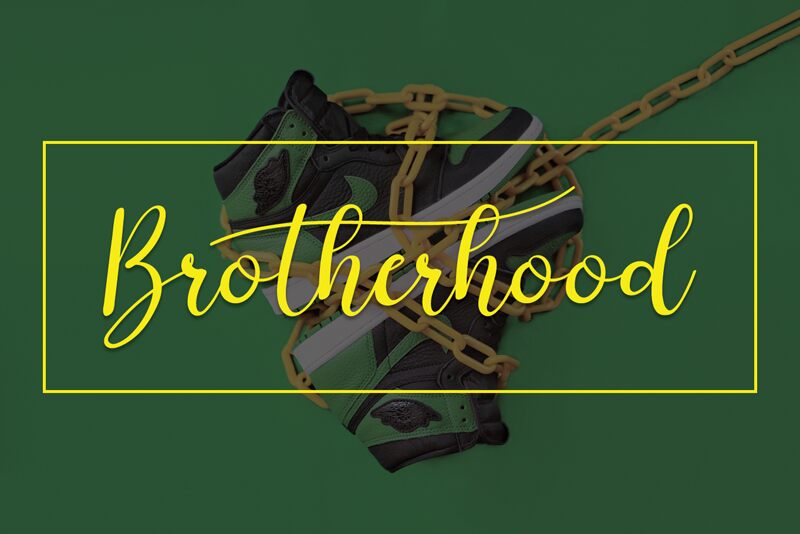
Brotherhood
Brotherhood by Erik Studio is a well-balanced script font featuring charming, playful characters that seem to dance along the baseline. Add this font to your most creative ideas, and notice how it makes them stand out!